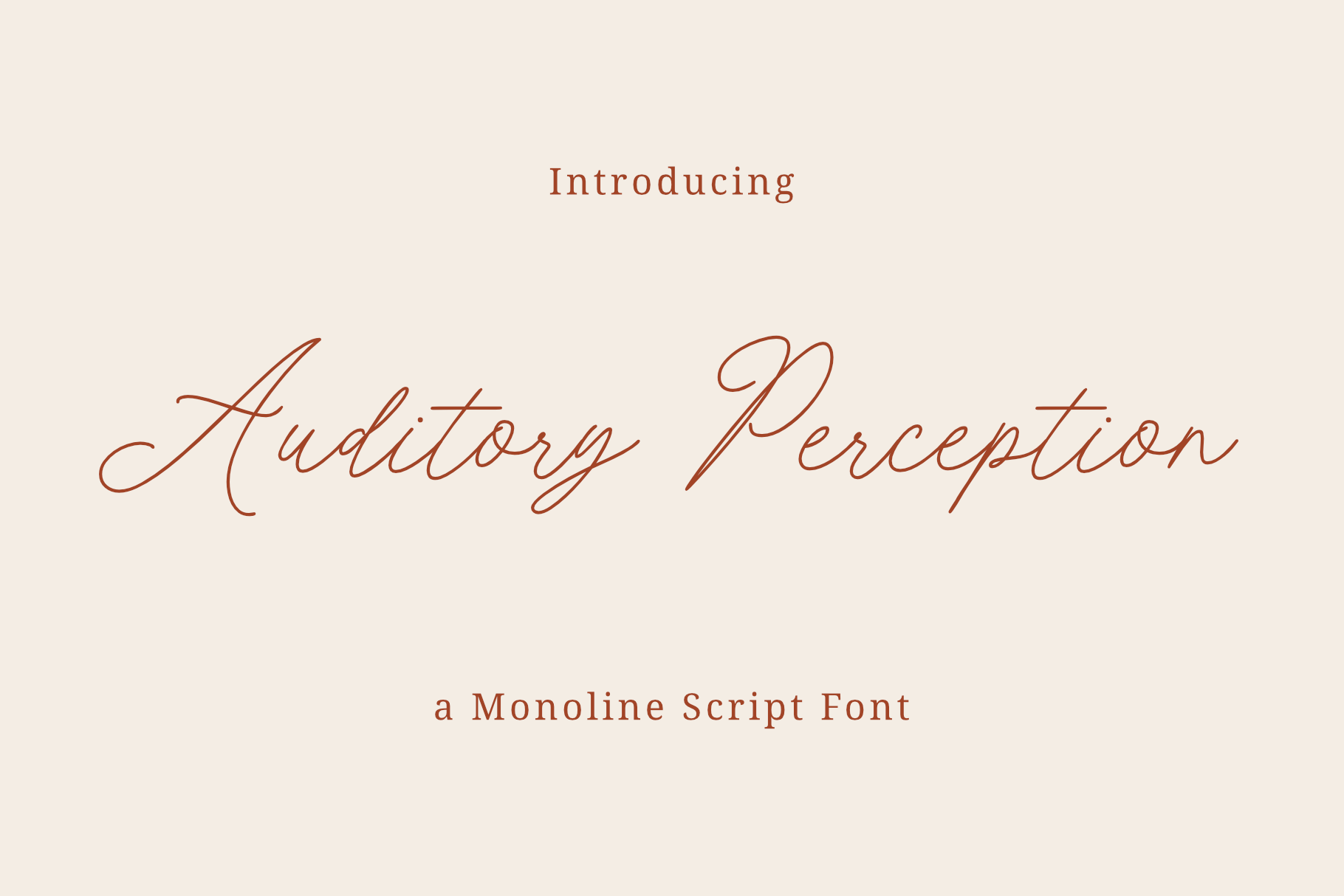
Auditory Perception - Monoline Font
Auditory Perception is a monoline and handwritten font. Auditory Perception have a fashion and simple curves to add charm impression for your design. This font is perfect for many design needs such as merch, T-shirts, signature logo, wedding, book covers, social media posts, websites, events, and many more.